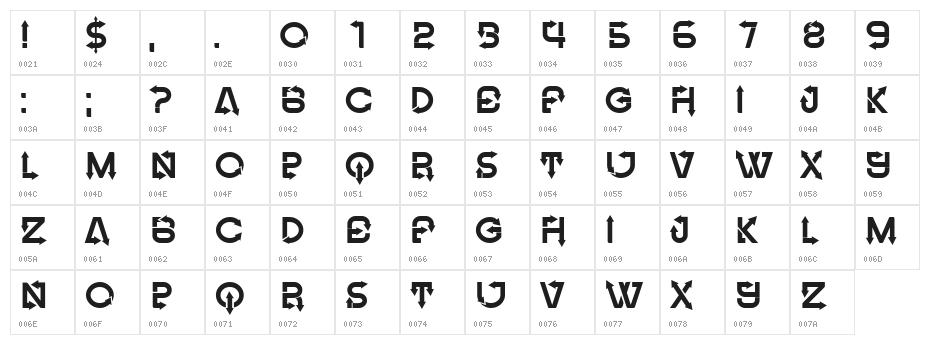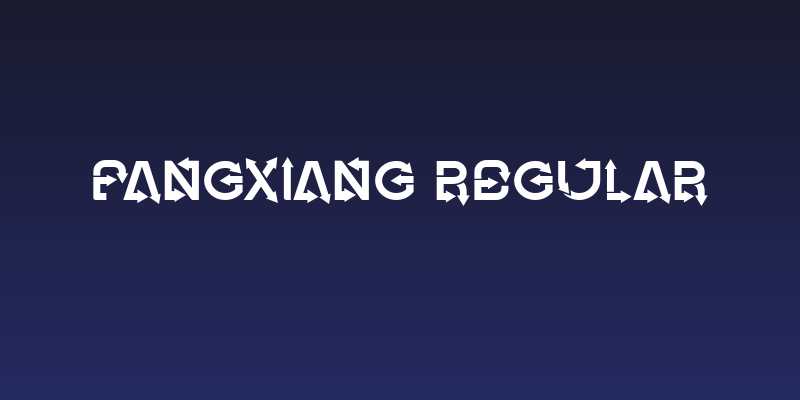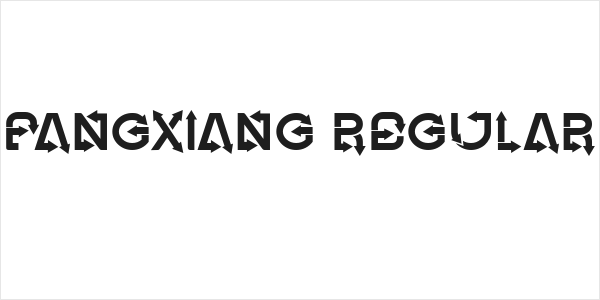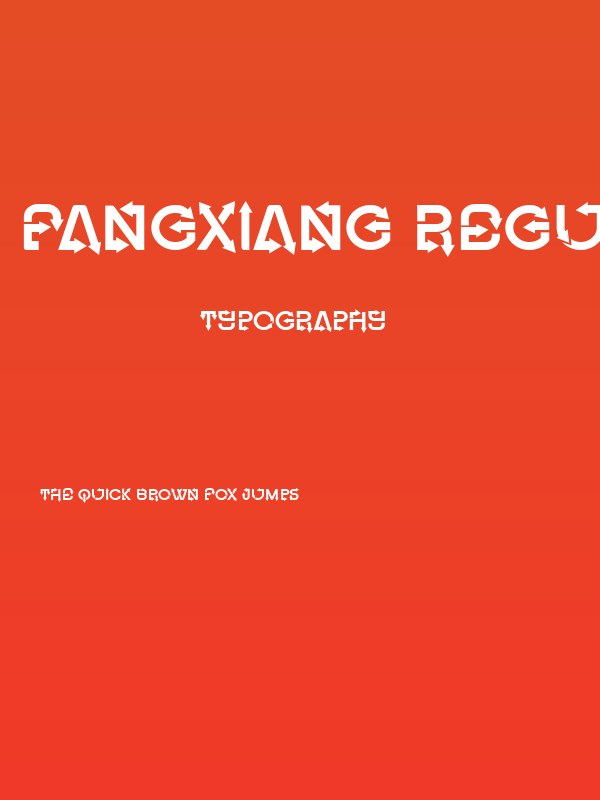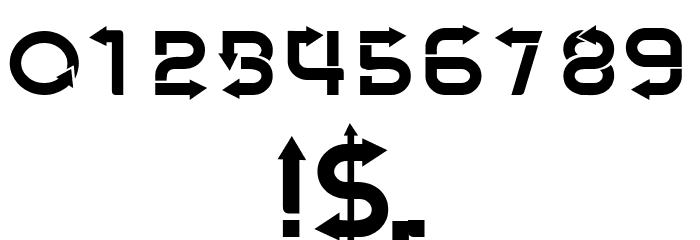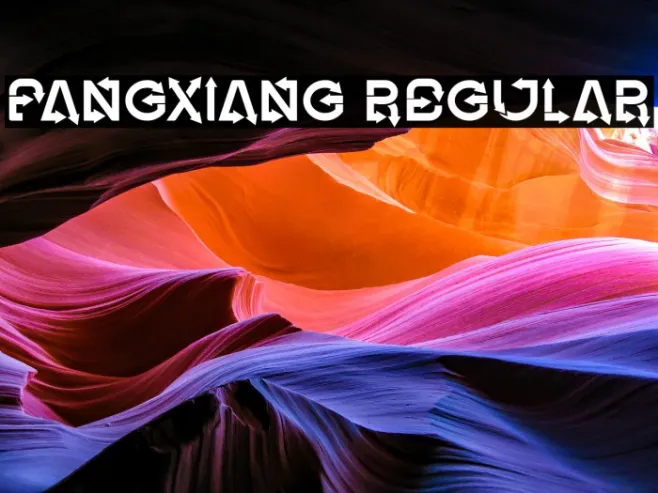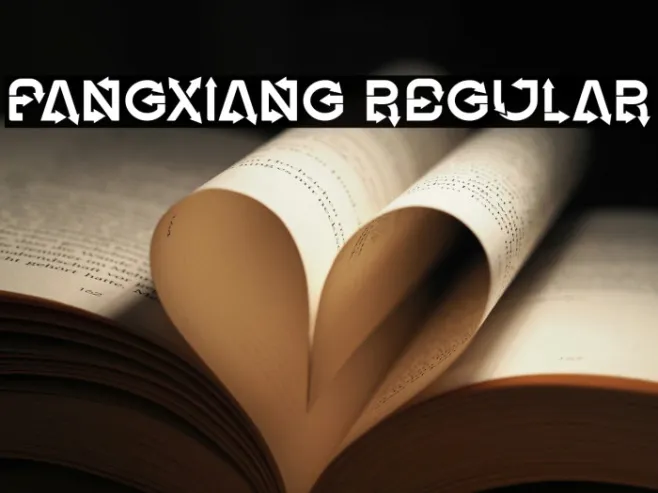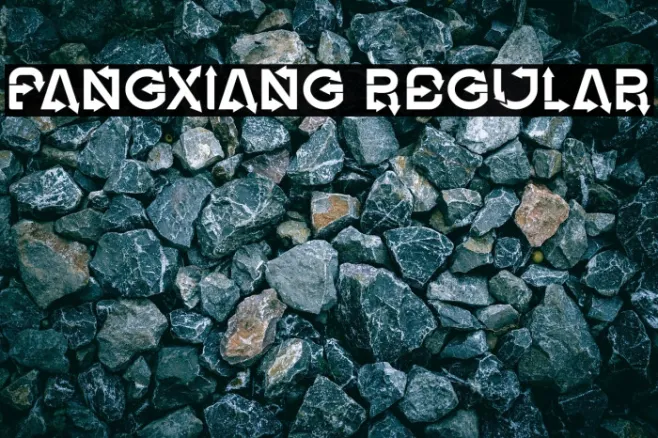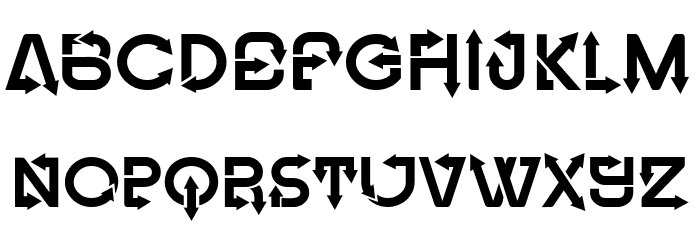
Fangxiang Regular Font
Fangxiang Regular Description
This font features a bold, geometric design with sharp angles and arrow-like elements integrated into each character. The uppercase and lowercase letters maintain a consistent style, emphasizing a futuristic and dynamic appearance. The numbers and special characters follow the same design principles, creating a cohesive look across all glyphs. The font's unique style makes it stand out, with a strong visual impact that is both modern and edgy.